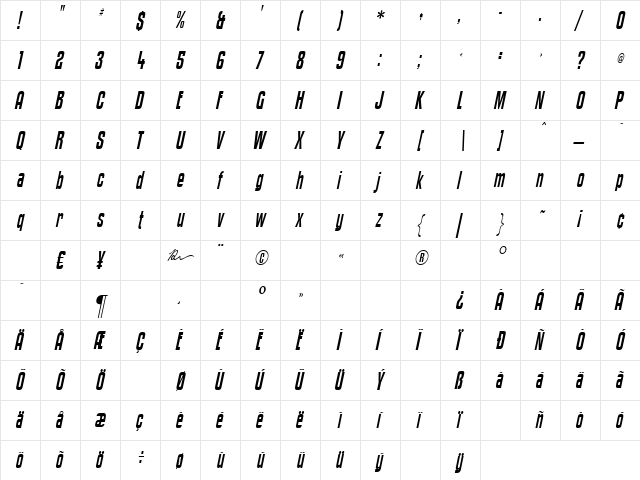
Kenyan Coffee Italic
Kenyan Coffee is a composed and adaptable typeface that performs quietly and consistently across a wide range of design contexts. Its italic angle brings a sense of urgency and motion to the letterforms.
Pro Tip: Try Kenyan Coffee for annotation and caption copy alongside an upright companion — the contrast in angle creates a dynamic but ordered typographic system.